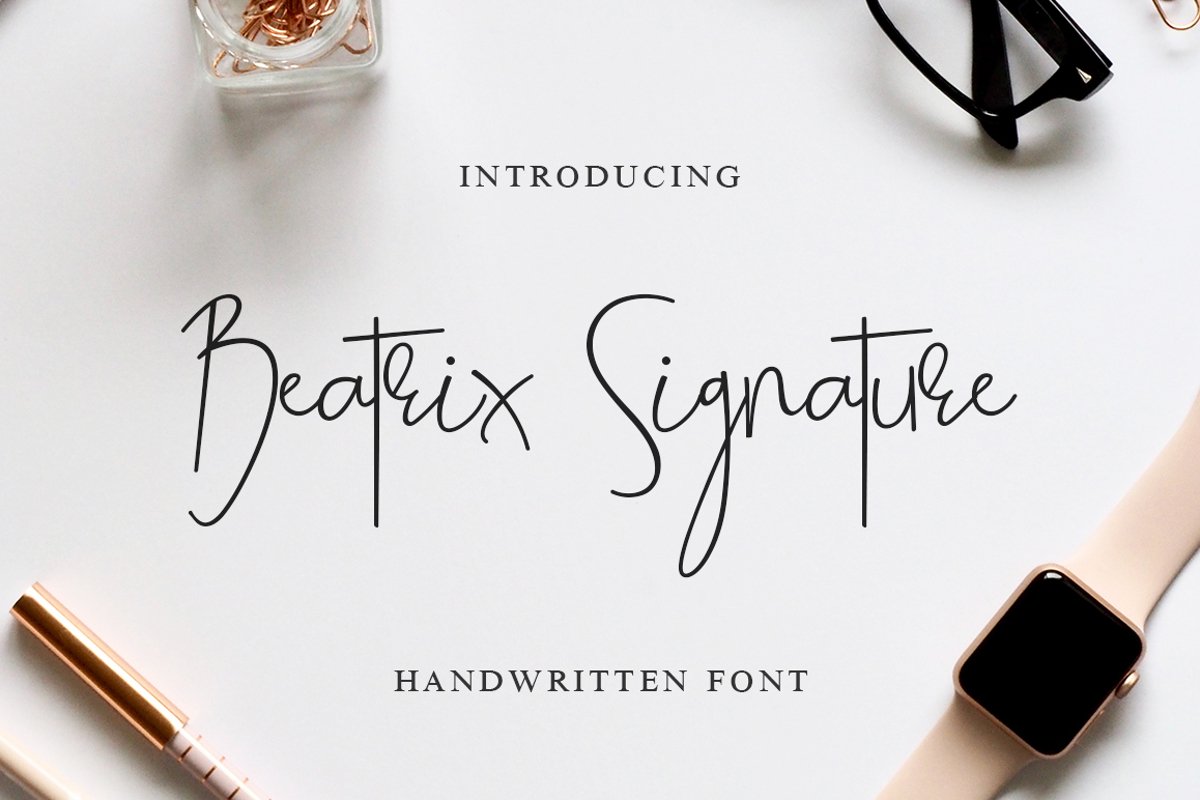
Beatrix Signature
Introducing "Beatrix Signature" script font, an elegant and stylish handwritten script font that highly recommended for every design projects :)
Beatrix Signature specially created with natural hand writing gesture in each character, It is a perfect font with signature style for any design project such as branding, packaging, or just for text overlay to any background image.
This font includes Ligatures and Stylistic Alternates for several characters.